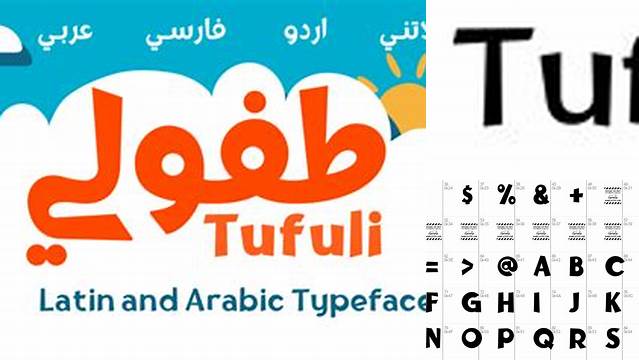
What is the Tufuli Arabic Regular Free Font?
First things first, what exactly is the Tufuli Arabic Regular Free Font? Well, it's a modern and elegant Arabic typeface designed for versatility. It's perfect for a wide range of uses, from graphic design and branding to web design and even print materials. The “Regular” in its name suggests a standard weight, making it easily readable and suitable for various applications. This font offers a clean and contemporary aesthetic that works exceptionally well for both headings and body text. The beauty of the Tufuli Arabic Regular Free Font lies in its ability to blend traditional Arabic calligraphy with a modern design sensibility. This makes it a great choice for projects where you want to convey both authenticity and a contemporary feel. The font is designed to be easily readable, with clear letterforms that make it user-friendly for both native Arabic speakers and those who are less familiar with the language. The creators of this font clearly prioritized readability and aesthetic appeal, providing a valuable resource for designers. One of the best things about the Tufuli Arabic Regular Free Font is that it's available for free, which means it's accessible to everyone. This is particularly beneficial for small businesses, freelancers, and hobbyists who may have budget constraints but still want to use high-quality fonts. Whether you’re creating posters, website banners, social media graphics, or even designing a logo, this font can add a distinctive touch to your work. The free availability of this font encourages creativity and allows designers to experiment with Arabic typography without financial barriers. This accessibility is key in promoting the use of diverse and culturally rich fonts across the board. The thoughtful design of the Tufuli Arabic Regular Free Font makes it a solid choice for projects that aim to celebrate and showcase Arabic culture or language. The font’s versatility, combined with its free availability, makes it an essential asset for designers who want to diversify their typography while staying within a budget. In short, the Tufuli Arabic Regular Free Font is a user-friendly, modern, and accessible typeface, perfect for injecting some Arabic style into your projects. This font gives a touch of authenticity and a modern design sensibility. Also, this is a free font that is accessible to everyone.